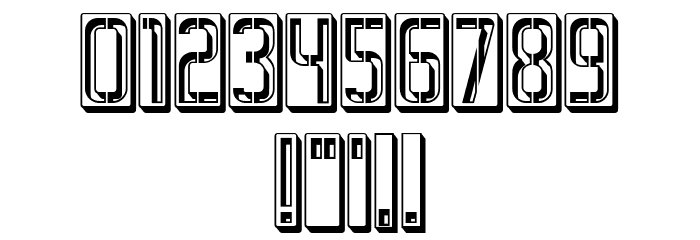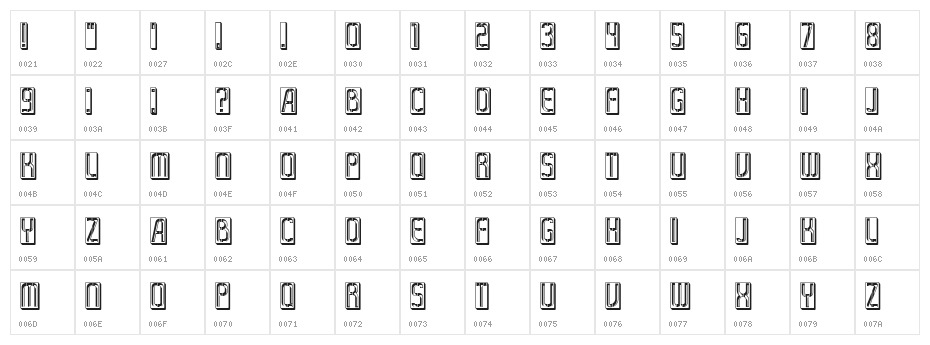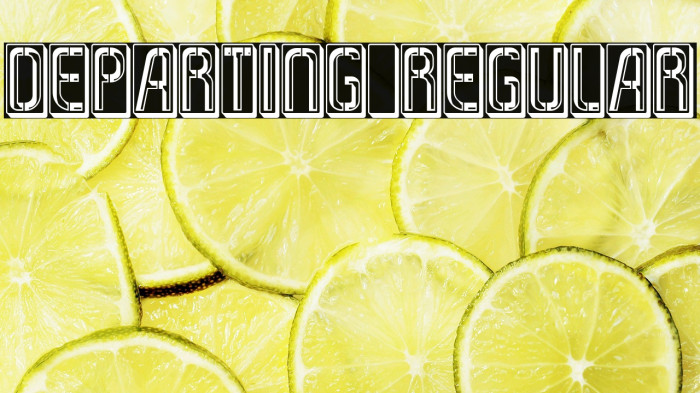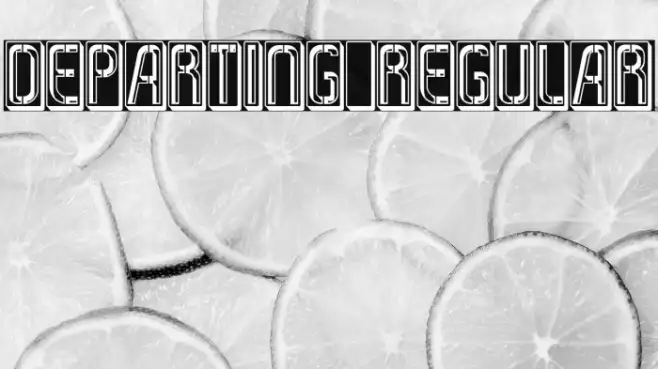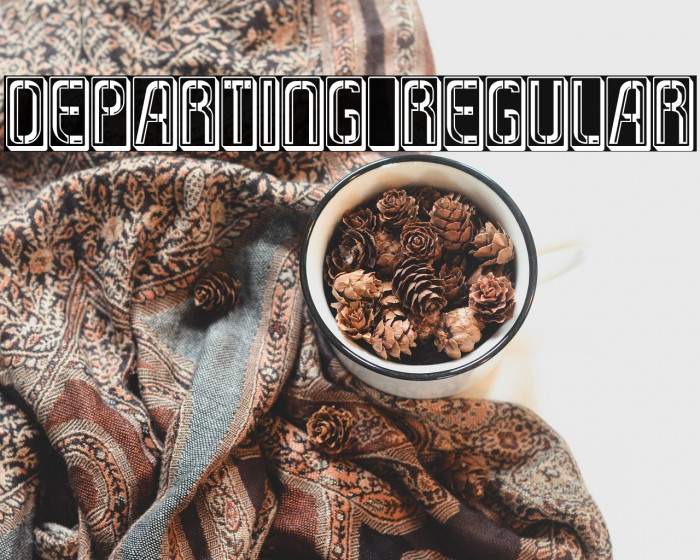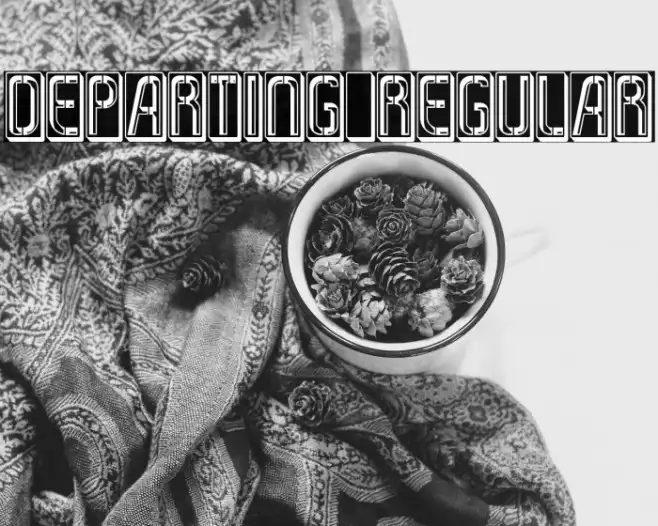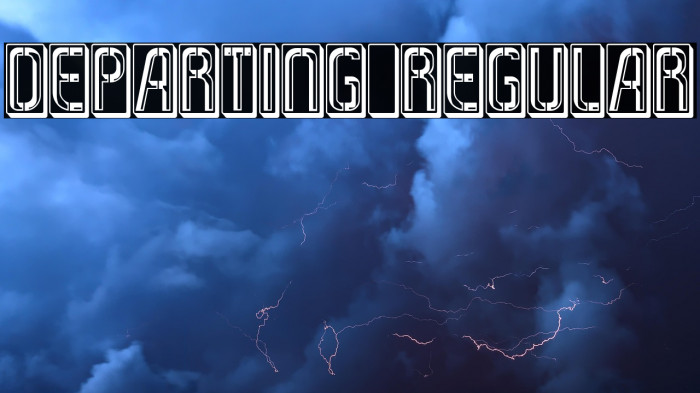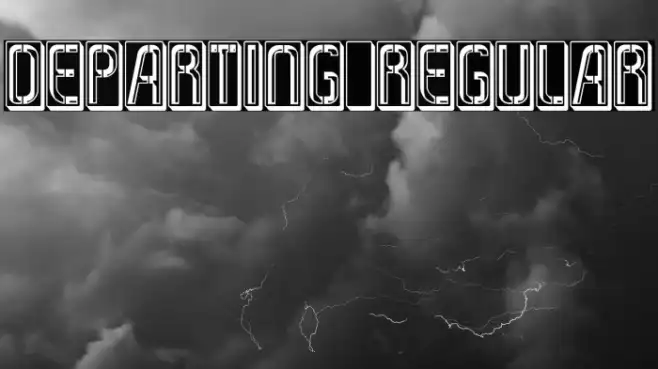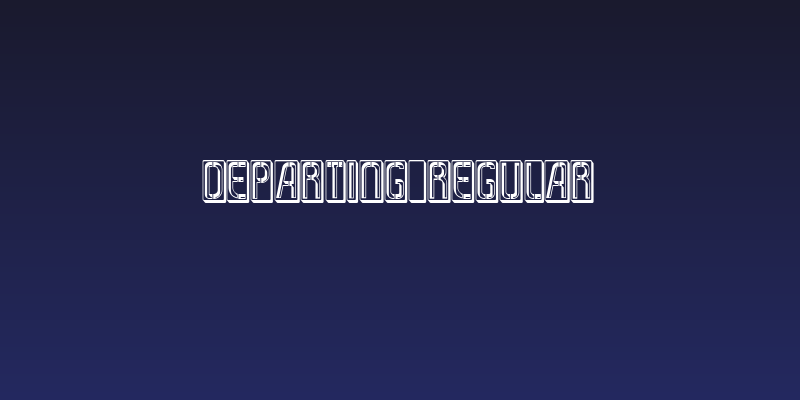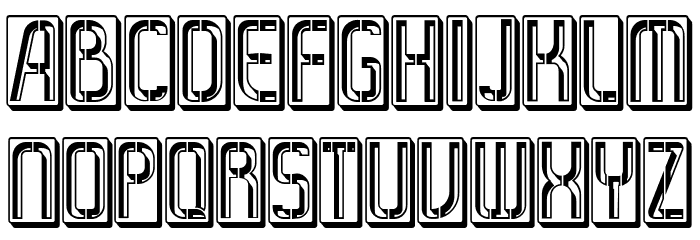
Departing Regular Font
Departing Regular Description
This font features a bold, geometric design with a distinct three-dimensional effect. Each character is outlined with a thick border, creating a sense of depth and structure. The letters are constructed with straight lines and sharp angles, giving them a modern and futuristic appearance. The consistent use of rectangular shapes and the uniformity in height and width across characters contribute to its cohesive look. The font's unique style makes it stand out, ideal for attention-grabbing headlines or creative design projects.
Proposed ProjectsIdeal for futuristic designs, tech-related branding, posters, and eye-catching headlines.